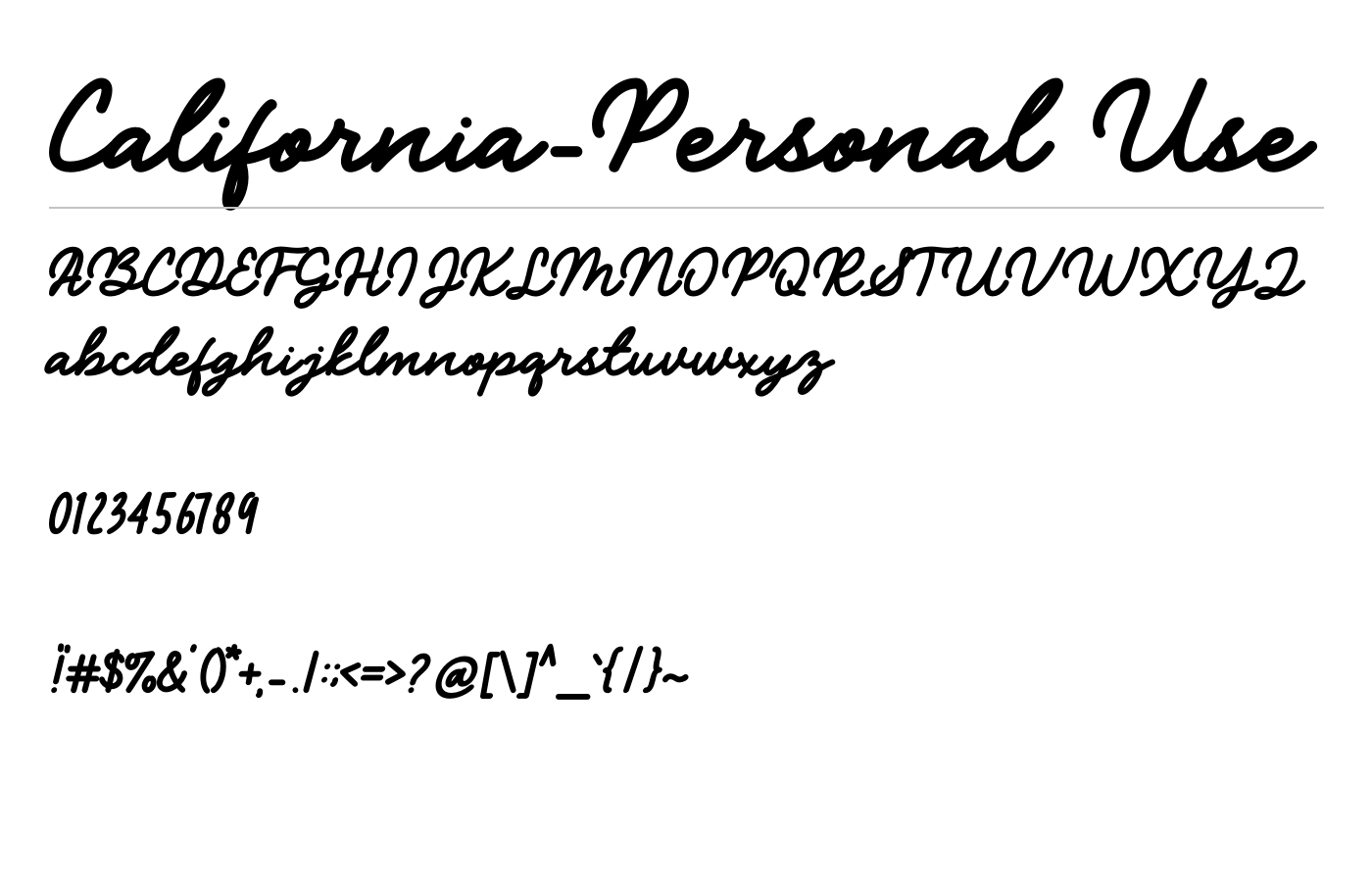
California-Personal Use is a smooth and flowing script font that mimics elegant, handwritten cursive with a warm, friendly feel. Its moderate weight and balanced slant give it a personal yet polished look, making it ideal for invitations, branding, and casual yet refined design projects. This font works well in contexts where a touch of charm and approachability is desired, such as lifestyle blogs, greeting cards, or boutique packaging.
California-Personal Use Font
About California-Personal Use Font
| Font family | California-Personal Use Font |